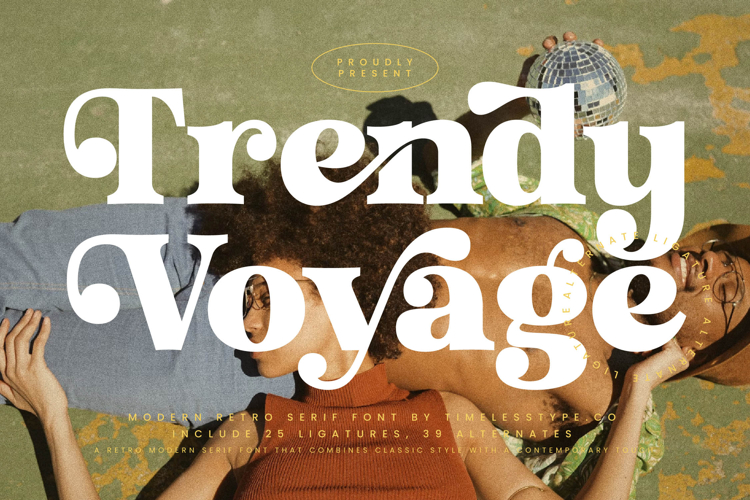
Trendy Voyage - Modern Retro Serif
Trendy Voyage Typeface is a modern retro serif font that blends classic charm with contemporary flair. Featuring 25 ligatures and 39 stylistic alternates, this typeface provides designers with endless creative possibilities to build stylish, bold, and expressive typography. Its rounded serifs, bold strokes, and ornamental details reflect a retro aesthetic while remaining highly relevant in modern design. Trendy Voyage is perfect for projects that aim to capture the warmth of nostalgia with a fresh and fashionable twist.